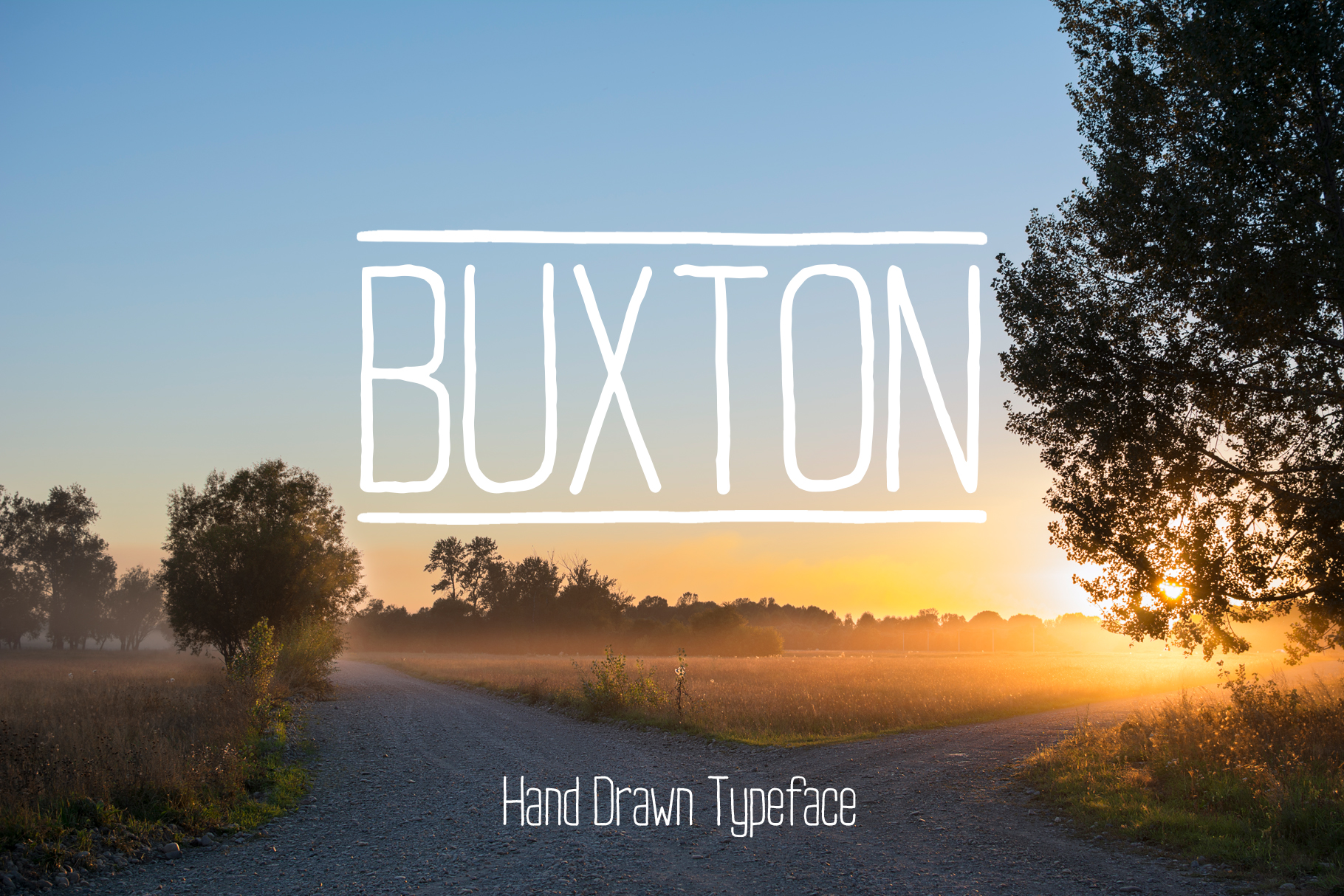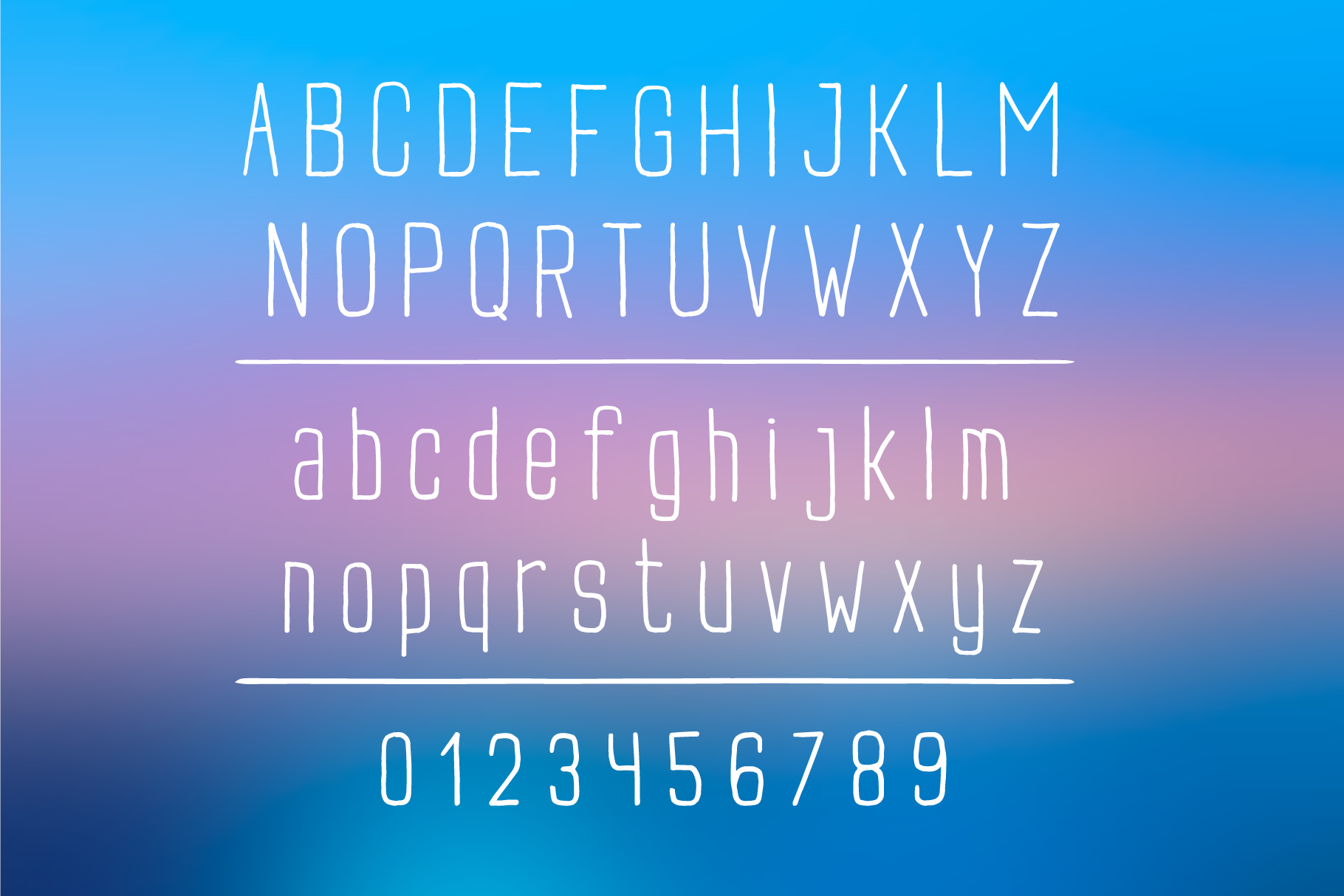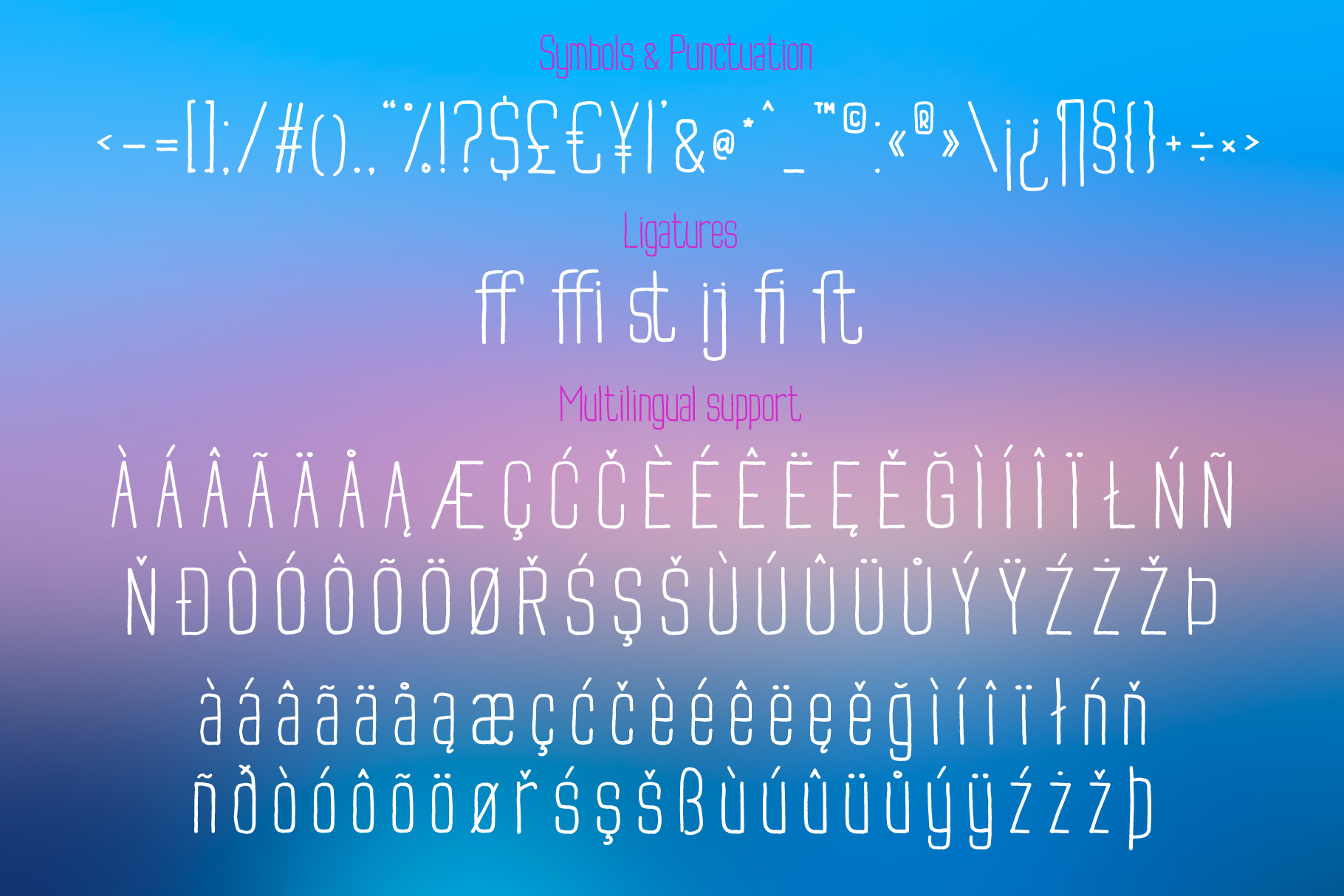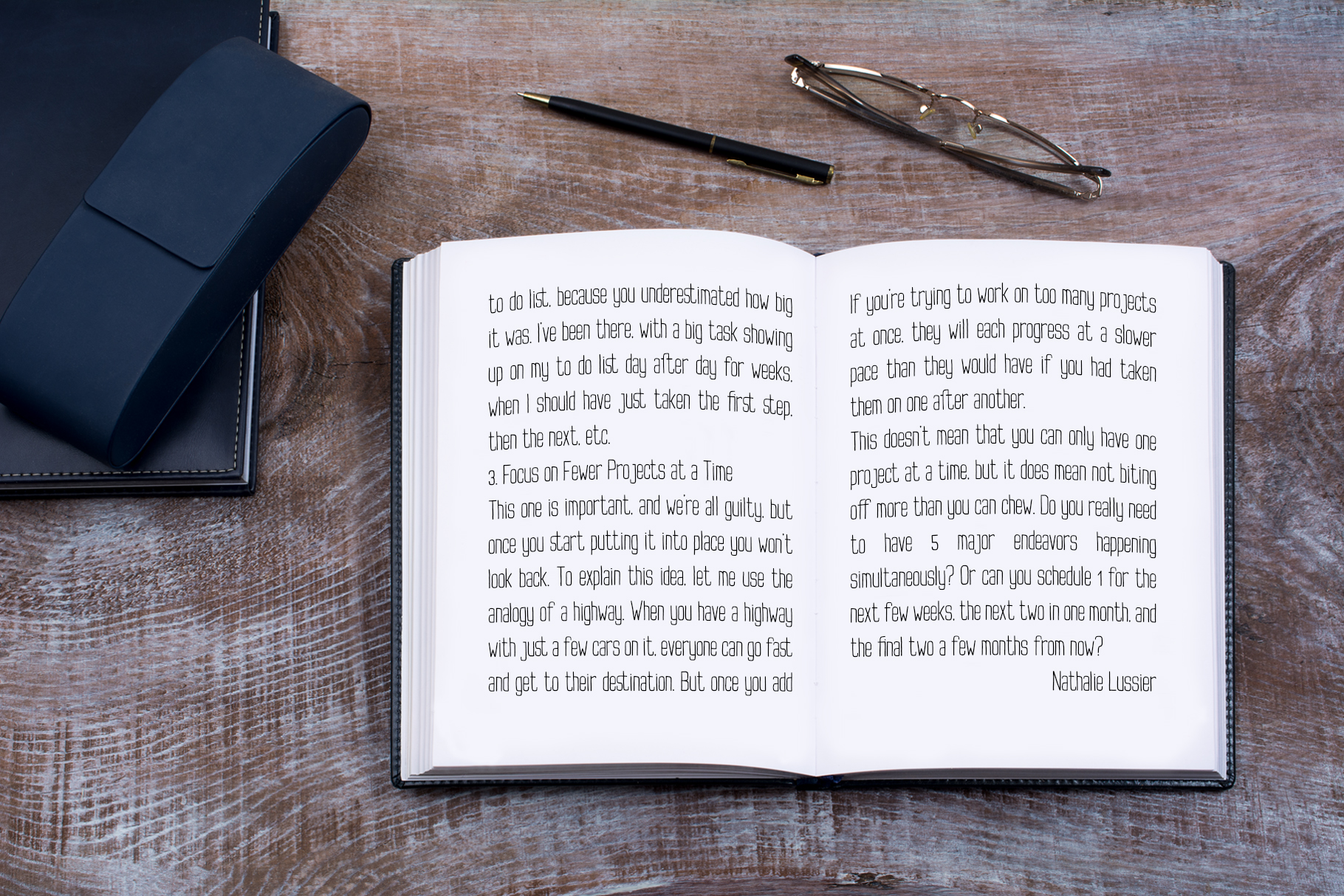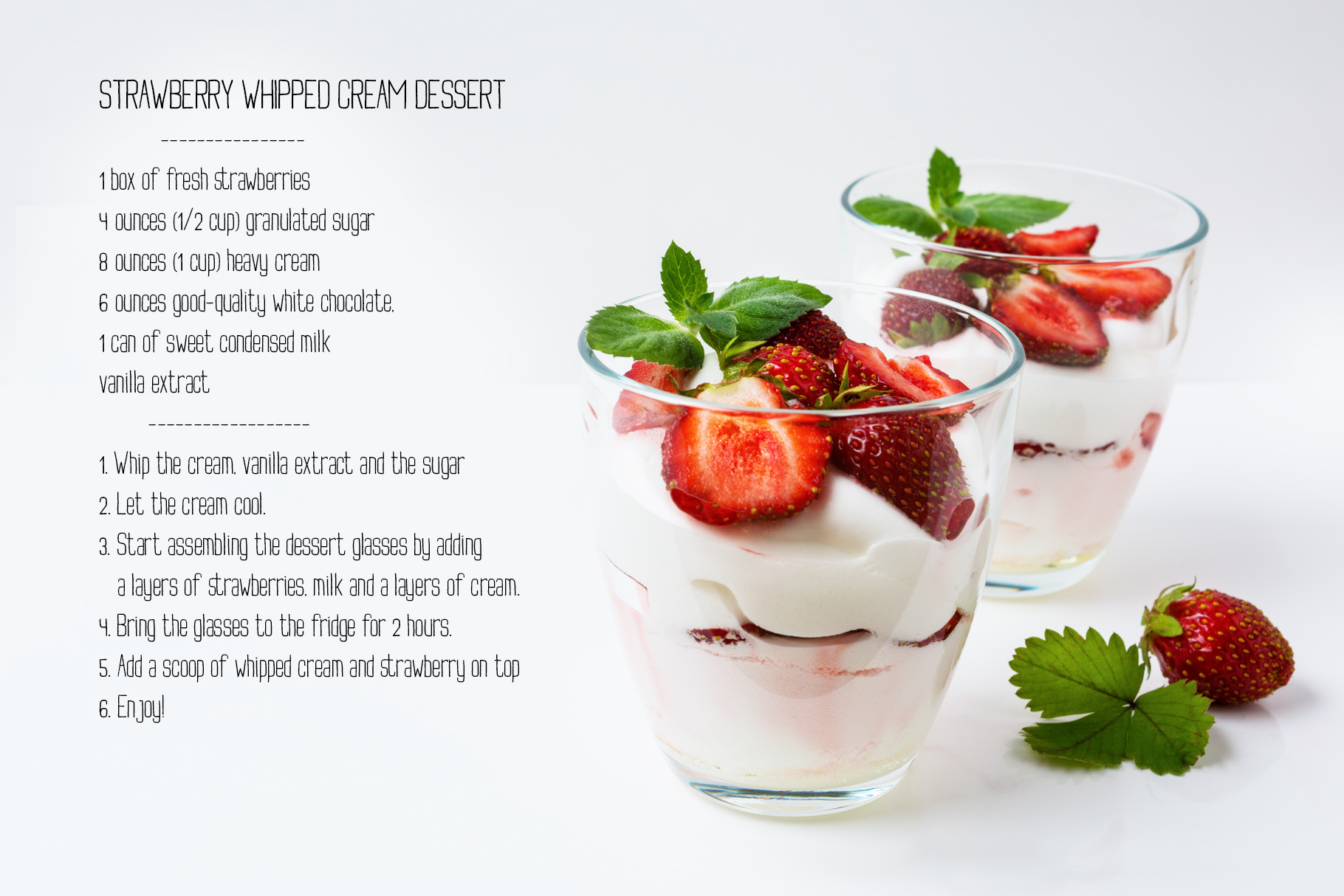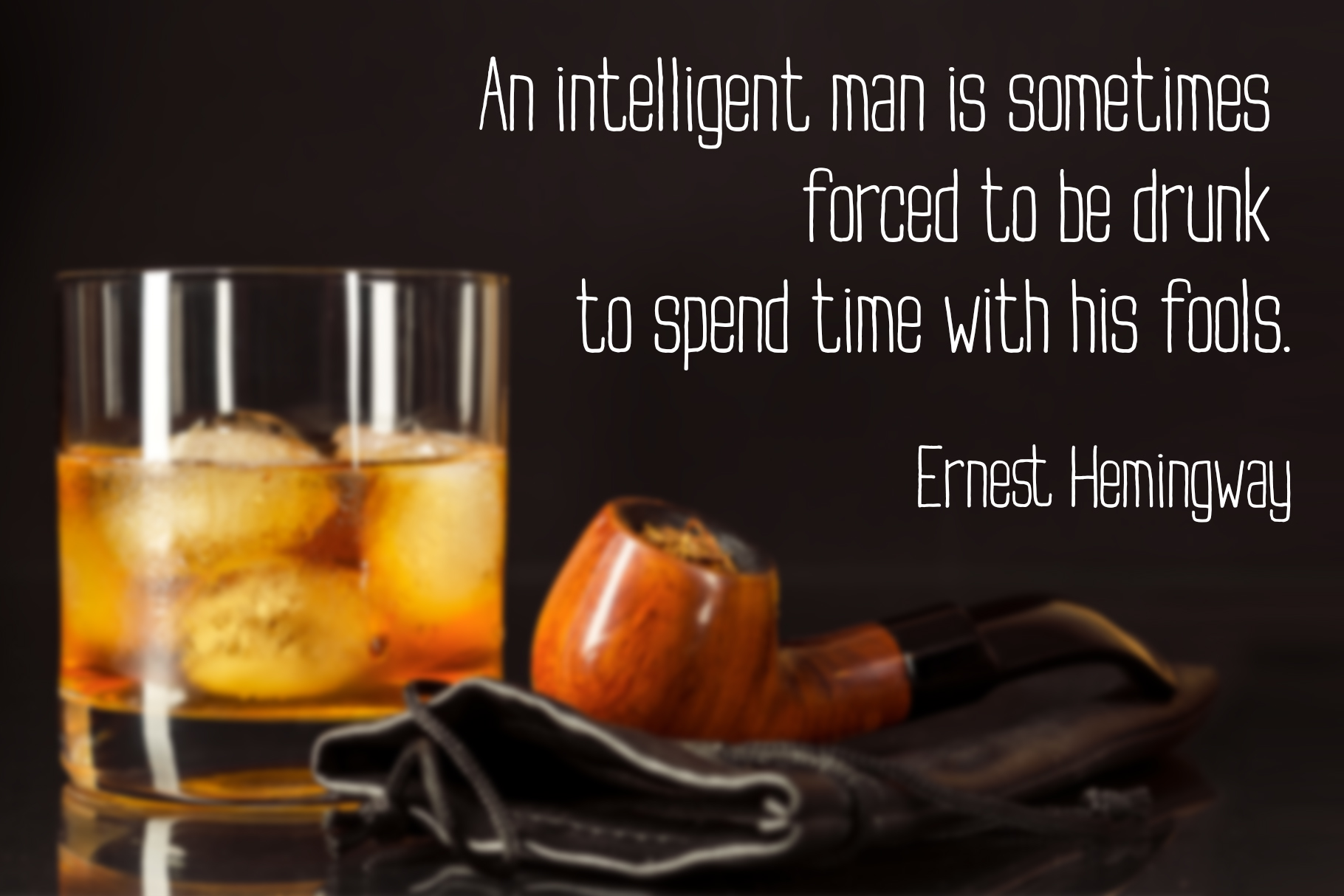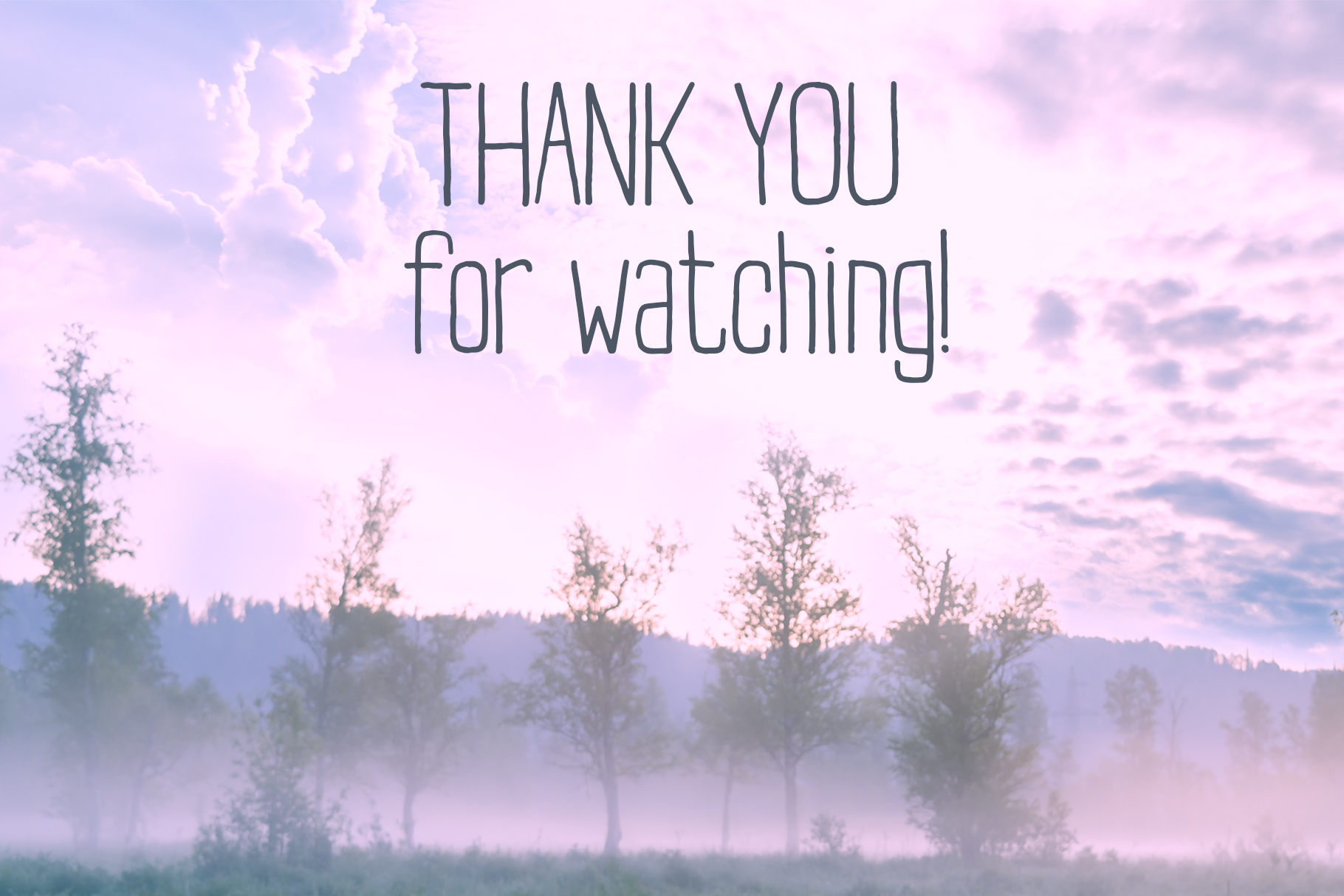
Buxton Font
About Buxton Font
Buxton is a minimalistic handwritten sans serif font that looks great on your design and branding products. This sans serif styled font is legible and condensed, giving it a modern feel.